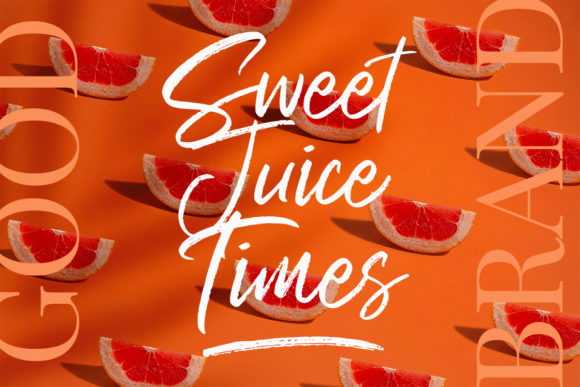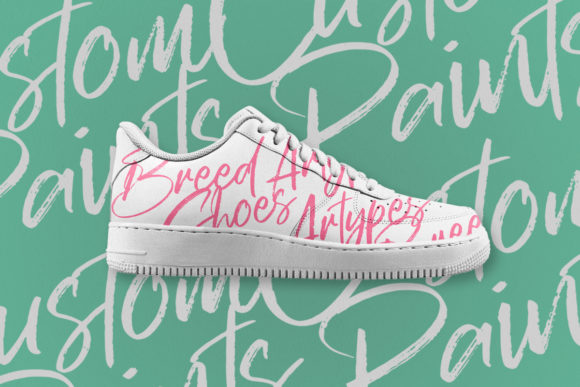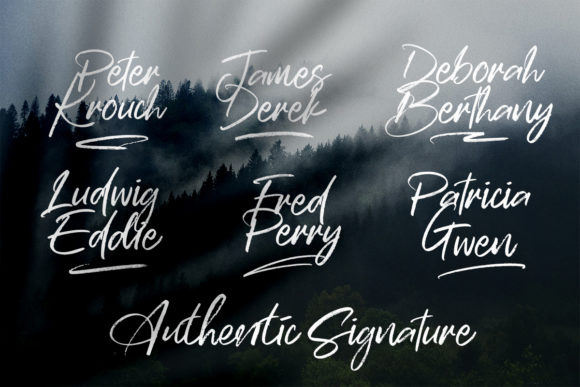
Introduction to Deutchsland Signature Font
Do you remember the moment when a simple handwritten note from a loved one turned your day around? Perhaps it was a heartfelt ‘thank you’ or a sweet love letter. Whatever it was, the emotional impact of that handwritten message left a lasting impression on you. As a designer, you understand the power of personal touch in a creative project. This is where the Deutchsland Signature Font comes in – a unique and elegant handwritten font that adds a touch of personality to your designs.
With its beautiful, flowing script, the Deutchsland Signature Font is perfect for designs that require a personalized style, such as wedding invitations, greeting cards, and logos. Whether you’re working on a high-end design project or a simple, yet meaningful, gesture, this font is sure to elevate your work and make it stand out.
In this article, we’ll delve into the world of the Deutchsland Signature Font, exploring its features, uses, and why it’s a valuable resource for designers looking to add a touch of elegance and sophistication to their creative projects.
Key Features of Deutchsland Signature Font
- Unique and Modern Design: Deutchsland Signature Font is a high-quality design resource ideal for creative projects requiring a modern and sophisticated touch.
- Perfect for Business and Corporate Projects: The font’s clean and modern design makes it perfect for business and corporate projects, such as logos, brochures, and marketing materials.
- Supports Multiple Languages: Deutchsland Signature Font supports a wide range of languages, making it an excellent choice for international projects and clients.
Honest Review: Deutchsland Signature Font
- High-quality typography: The font’s clean lines and modern aesthetic make it perfect for creative projects.
- Limited character set: The font’s character set is somewhat limited, which may be a concern for designers who need a wider range of characters.
- No bold or italic styles: The font only comes in regular style, which may not be suitable for certain design applications.
Overall, the Deutchsland Signature Font is a solid choice for designers who need a clean and modern font for their creative project. While it has some limitations, its high-quality typography and transparent background make it a great option for designers who want a reliable design resource.
For the best results, use the Deutchsland Signature Font on a transparent background. This will allow the font to be easily readable and add a touch of elegance to your design.
The Deutchsland Signature Font is perfect for any creative project, including logo design, business cards, and marketing materials. It’s also a great resource for designers who need a high-quality font for their design projects.